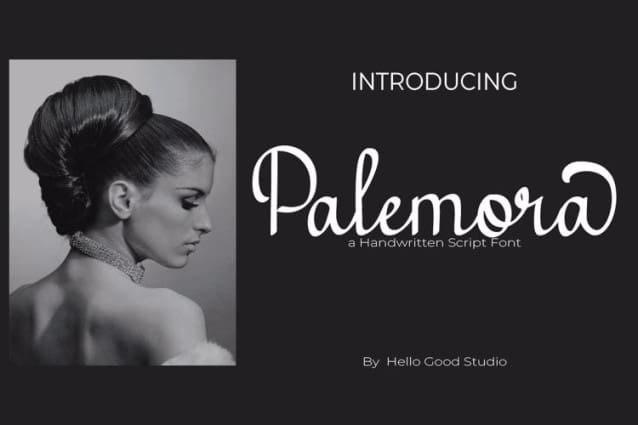
Palemora Script Font
Palemora Script Font is a gorgeous font and has been cleverly designed to be a true favorite. It retains the elegant calligraphic influences while still feeling contemporary and fresh. Love it and take your projects to the next level!